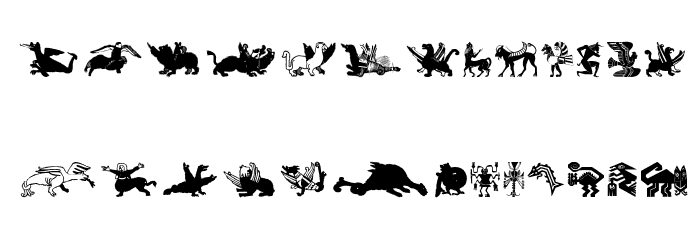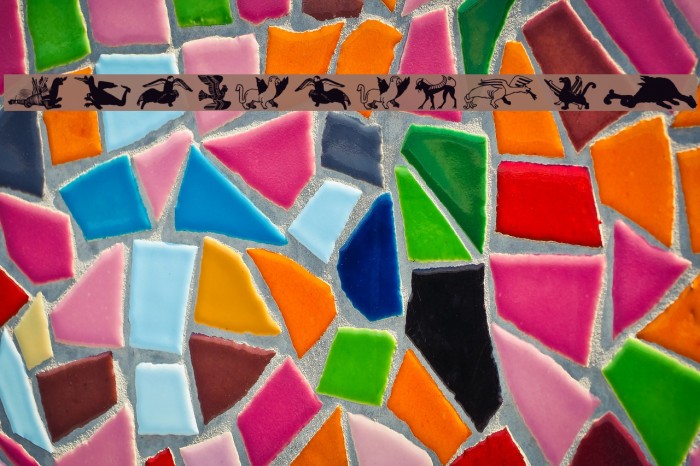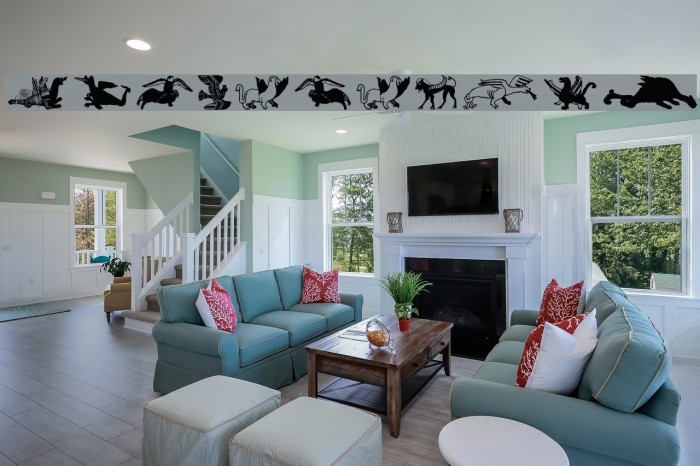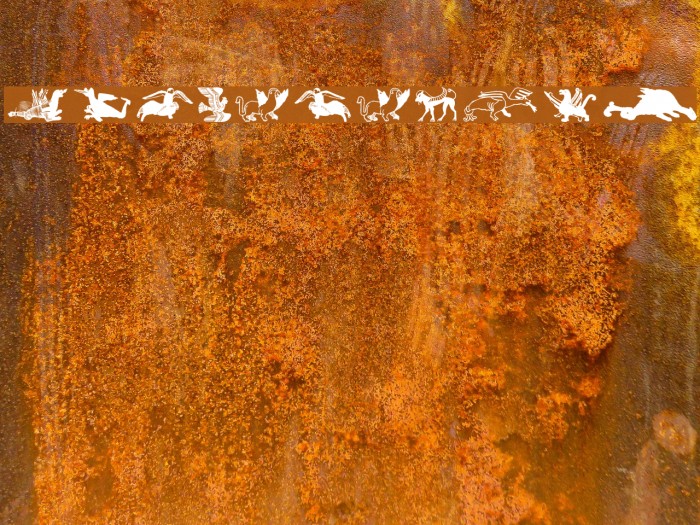
FableBeings Font
This is not a traditional font but rather a collection of whimsical and imaginative silhouettes depicting mythical creatures and fantastical beings. Each character is a unique illustration, showcasing a variety of mythical creatures in dynamic poses. The designs are intricate, with a playful and artistic style that captures the essence of fantasy and folklore. These illustrations are bold and striking, making them ideal for creative projects that require a touch of magic and imagination.
A collection of whimsical silhouettes of mythical creatures.
- Proposed Projects: Ideal for fantasy-themed posters, children's book illustrations, game design elements, and creative storytelling visuals.
- Use Case: Logos, Illustrations, Posters